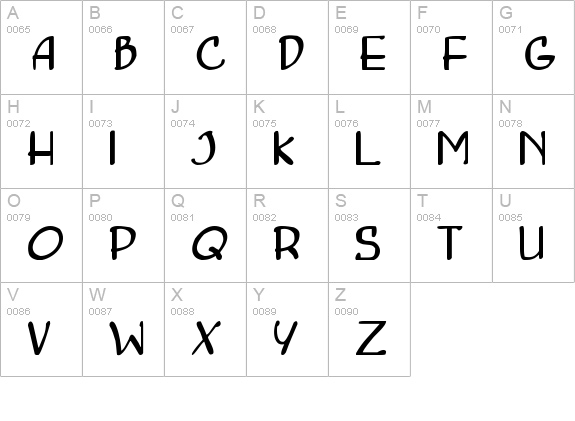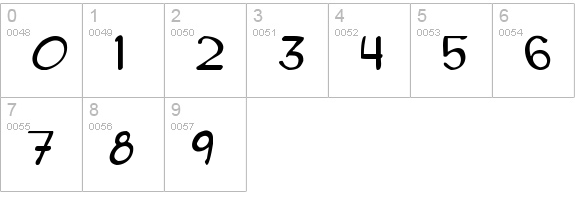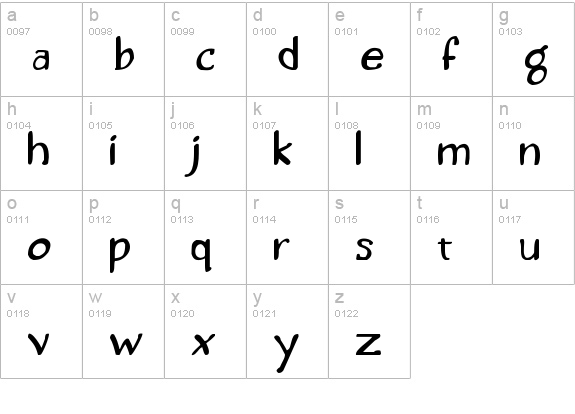
Concetta Font Details
Concetta font is a beautifully crafted typeface that exudes elegance and sophistication. With its graceful curves and stylish flourishes, this font is perfect for adding a touch of luxury to your designs. Whether you're creating wedding invitations, branding materials, or elegant signage, Concetta font is sure to make a statement. But the best part? Concetta font is completely free to download at FontsMarket.com. That's right, you can elevate your designs with this stunning font without having to spend a dime. So why wait? Download Concetta font today and add a touch of class to your projects.